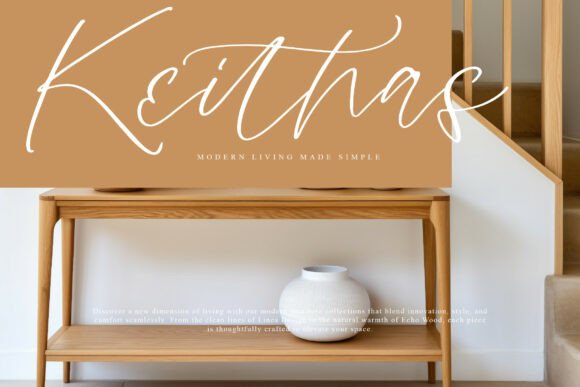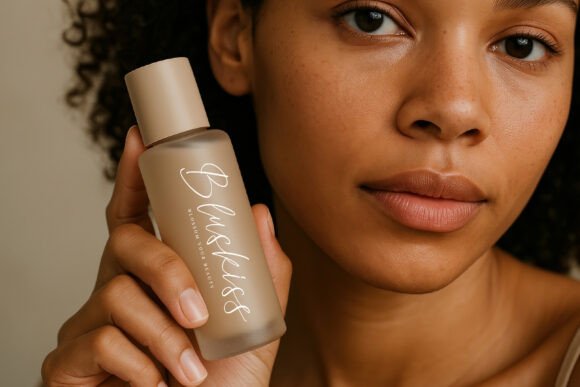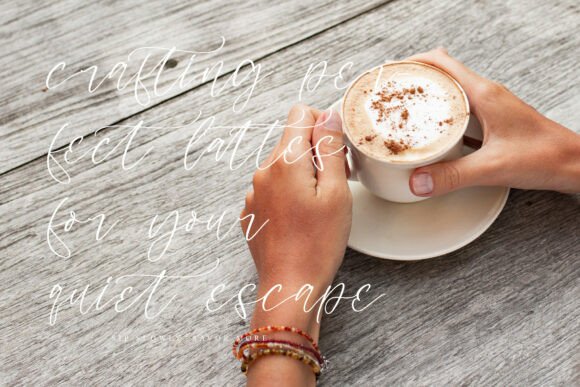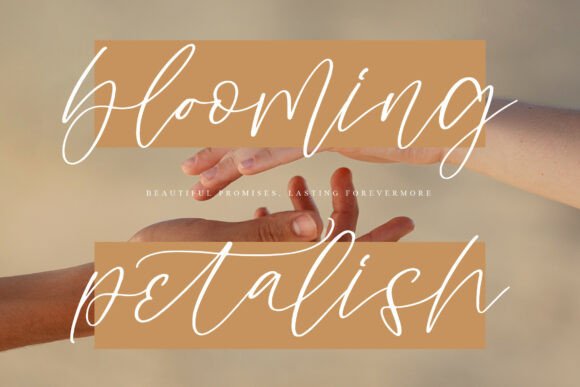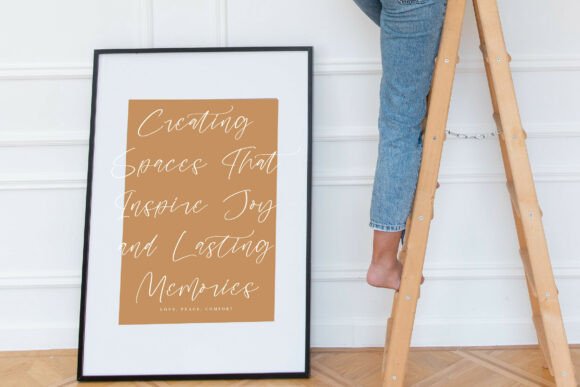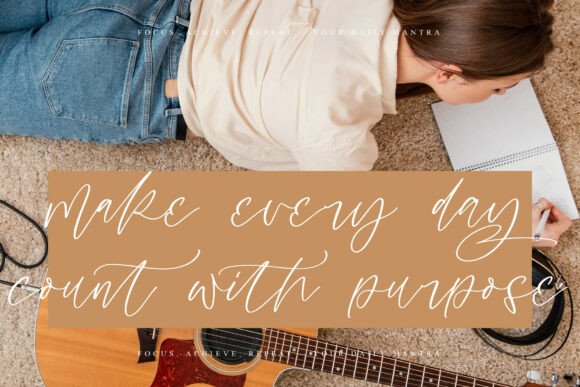
Introduction to Royales Horizon Font
Have you ever stared at a blank canvas, waiting for the perfect font to bring your creative vision to life? For many designers, that moment of inspiration can be elusive, but with the right tool, the possibilities are endless. That’s where the elegant Royales Horizon Font comes in – a high-quality design resource that can elevate any project from ordinary to extraordinary.
Whether you’re working on a fashion brand, editorial layout, or wedding invitation, Royales Horizon Font is the perfect choice to add a touch of sophistication. Its high-contrast strokes and fluid ligatures make it a standout, while its multilingual support adds versatility to its polished design. With a transparent background and free download available, this font is a valuable resource for designers looking to take their creative projects to the next level.
Key Features of Royales Horizon Font
- High-quality font with a transparent background, perfect for adding a touch of elegance to your designs.
- Unique and stylish design, with a modern aesthetic that sets it apart from other fonts in its class.
- Perfect for use in logos, branding, and other design elements where a sophisticated and elegant look is desired.
Honest Review: Royales Horizon Font
I recently had the chance to try out the Royales Horizon Font, and I must say it’s a fantastic addition to my design resource collection. ✨ With a high-quality design that’s perfect for creative projects, I was impressed by the level of detail and attention to typography.
Here are some of the things that work well with the Royales Horizon Font:
- Easy to use and integrate into design projects
While the font is great, there are a few limitations to keep in mind:
- May not be suitable for very large-scale commercial projects
- Not as many font styles or variations as some other fonts
Overall, I’m very impressed with the Royales Horizon Font. It’s a great choice for designers working on creative projects, and its free download option makes it an excellent value. ✨ I highly recommend checking it out and adding it to your design resource collection.
Designing with Royales Horizon Font
The Royales Horizon Font is a high-quality, free download design resource perfect for any creative project. This versatile font is ideal for creating eye-catching graphics, logos, and other design elements with a transparent background.
Tips for Getting the Most Out of Royales Horizon Font
Experiment with different font sizes, colors, and combinations to create unique and creative designs. Use the font in conjunction with other design resources to enhance your project’s visual appeal.
Common Use Cases for Royales Horizon Font
The Royales Horizon Font is ideal for designing logos, graphics, and other visual elements for websites, social media, and marketing materials. Its transparent background makes it perfect for creating overlays and other design elements that require a subtle look.
Alternatives to Royales Horizon Font